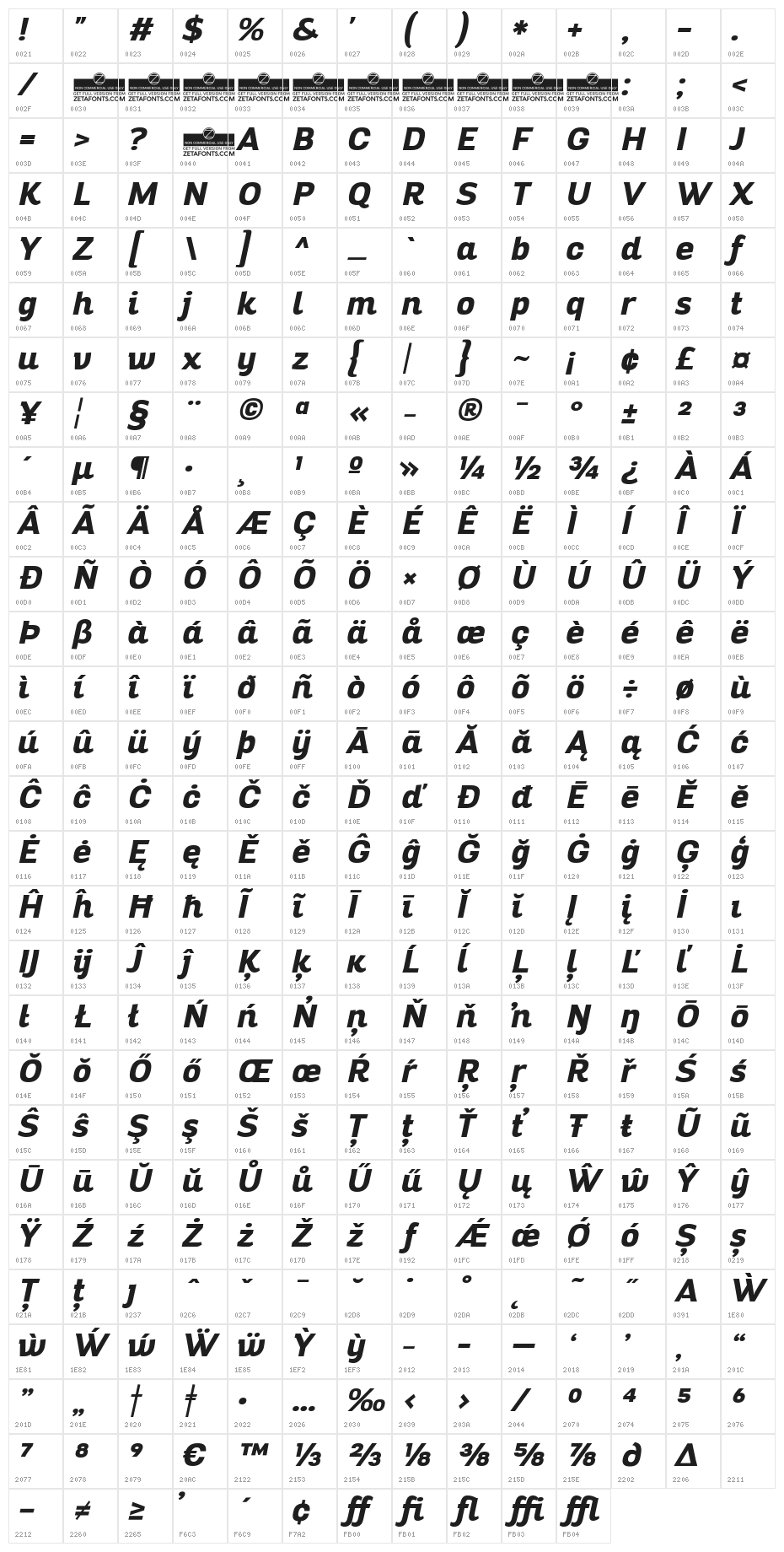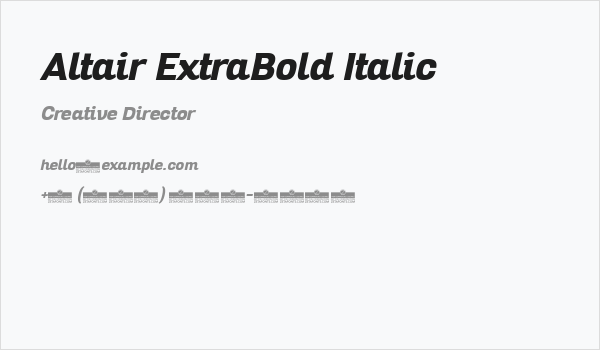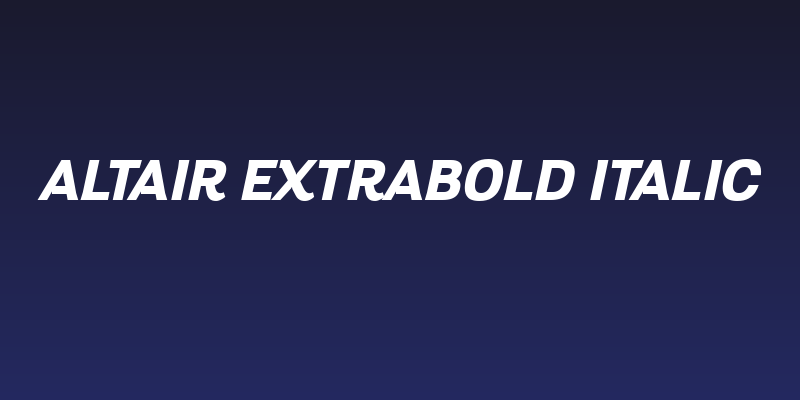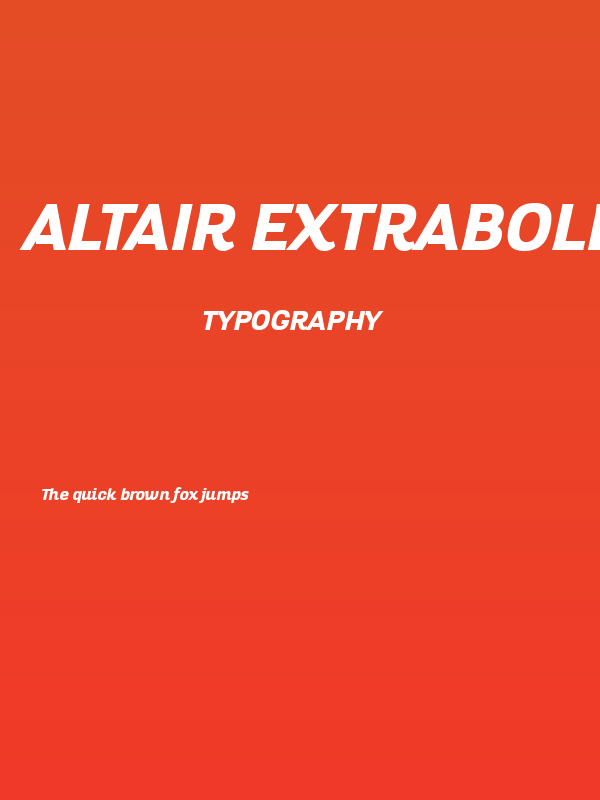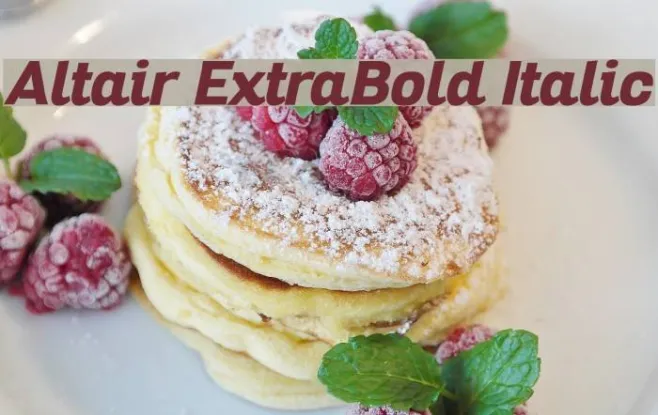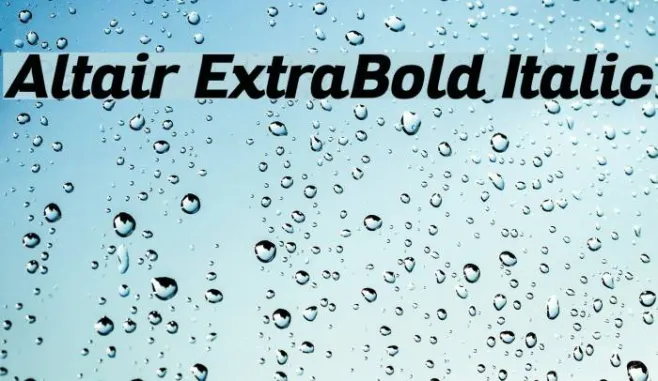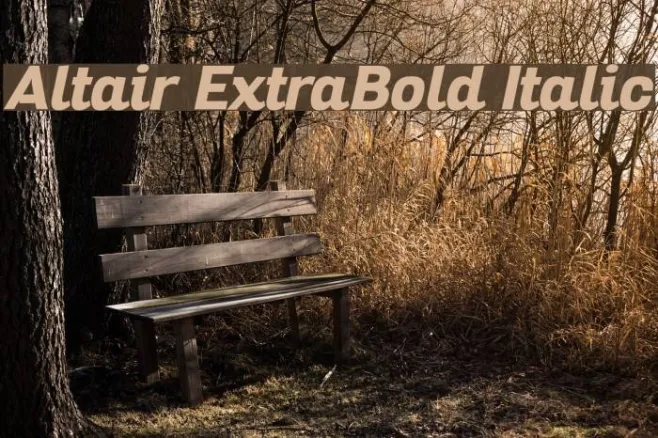
Altair ExtraBold Italic Font
Altair ExtraBold Italic Description
This typeface exhibits a bold and dynamic presence with its extra-bold weight and italic style. The characters are slightly slanted, adding a sense of movement and energy. The strokes are thick and consistent, providing a strong visual impact. The font maintains a modern aesthetic with clean lines and a uniform structure. The uppercase and lowercase letters are well-proportioned, ensuring readability and balance. The numerals and special characters are designed to complement the overall style, making it versatile for various applications.
| Proposed Projects | Ideal for branding, advertising, headlines, and any project requiring a strong visual impact. |